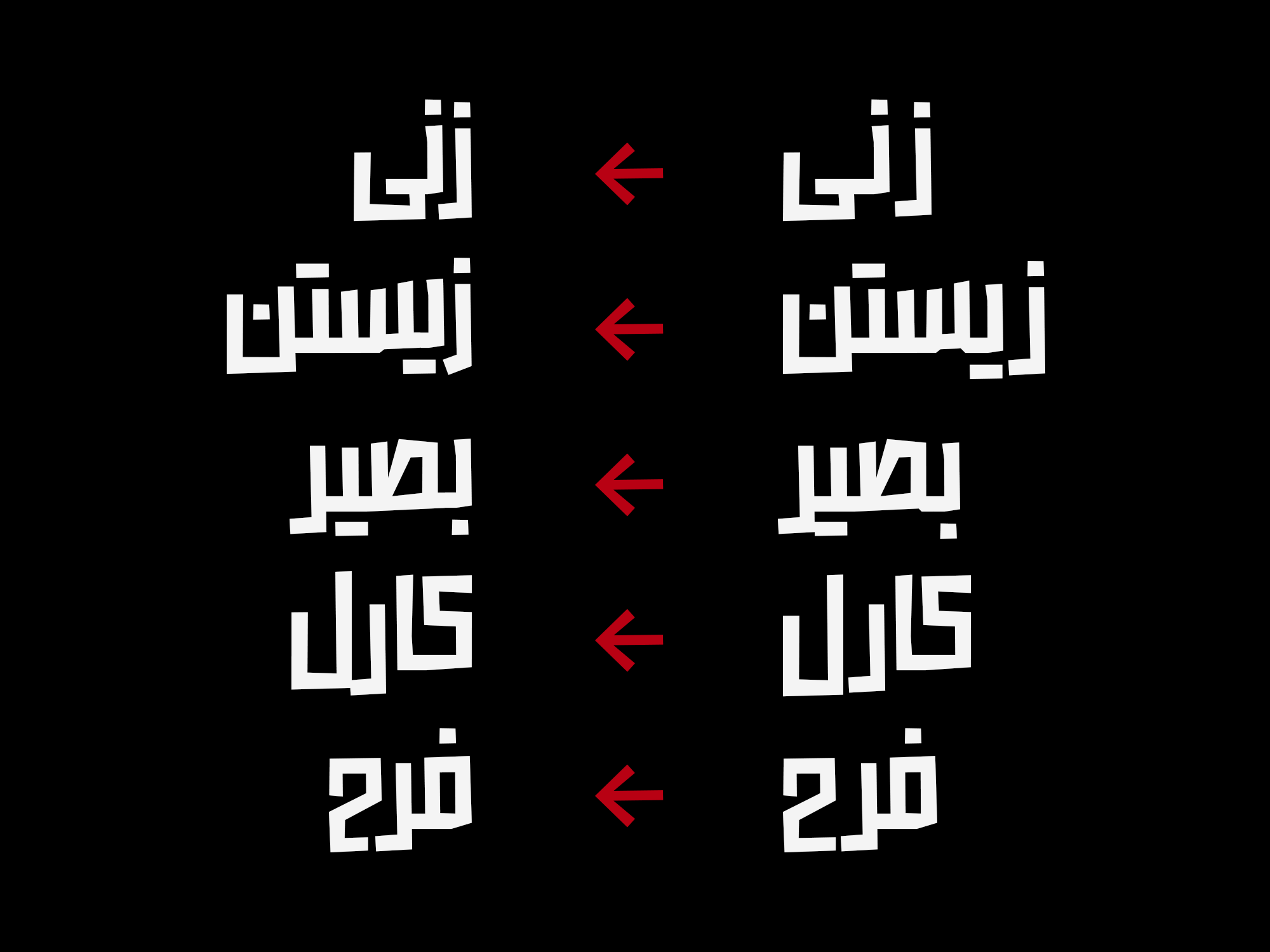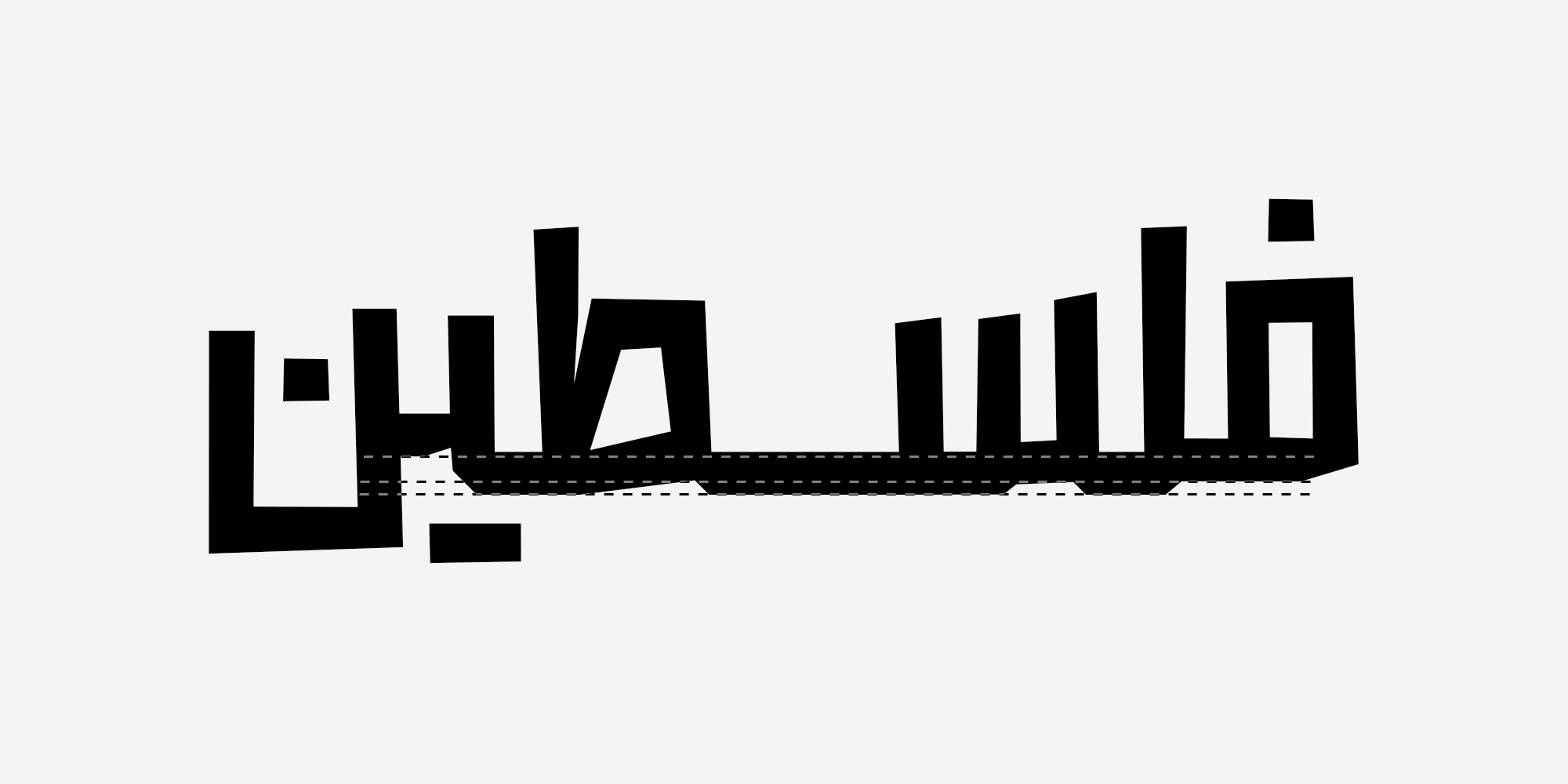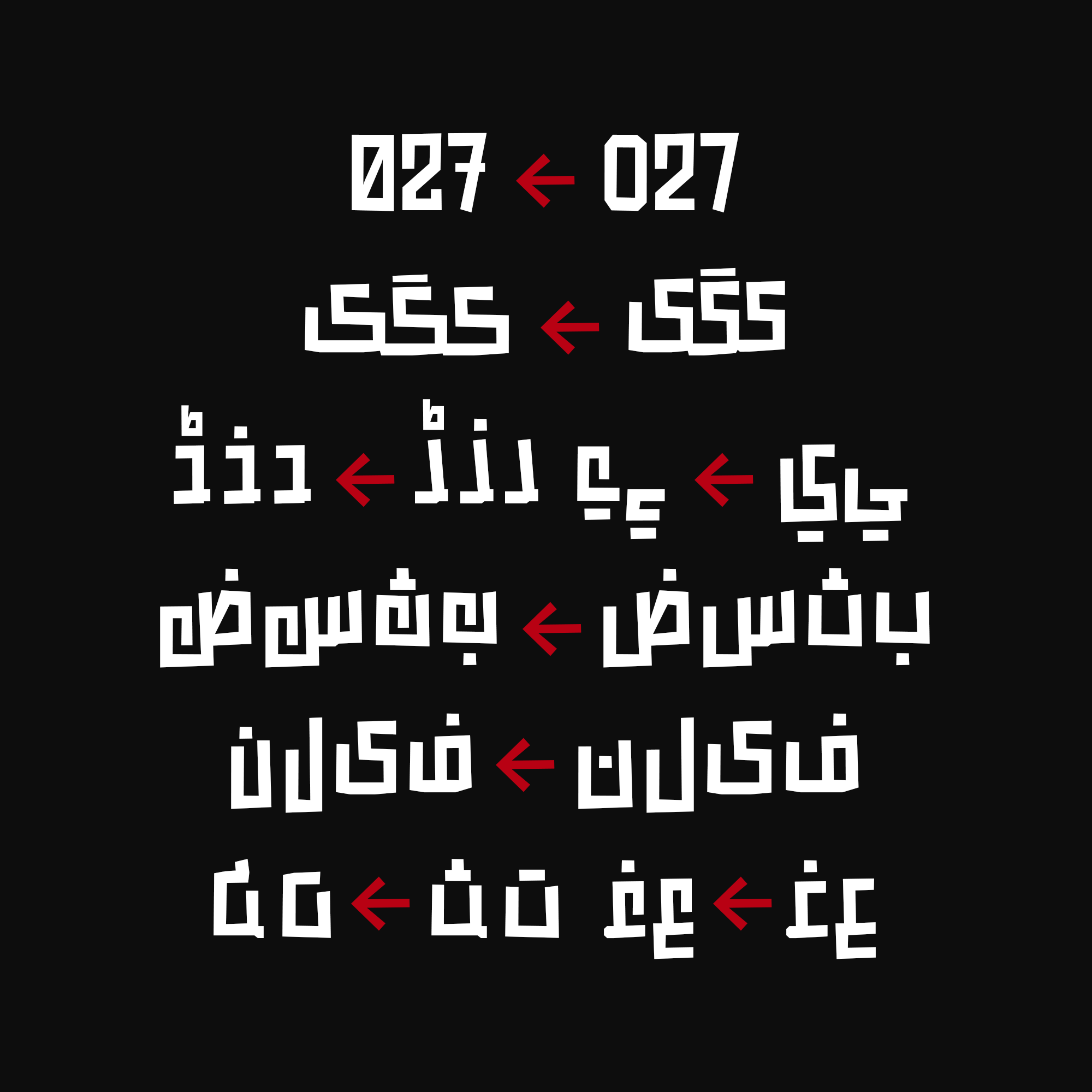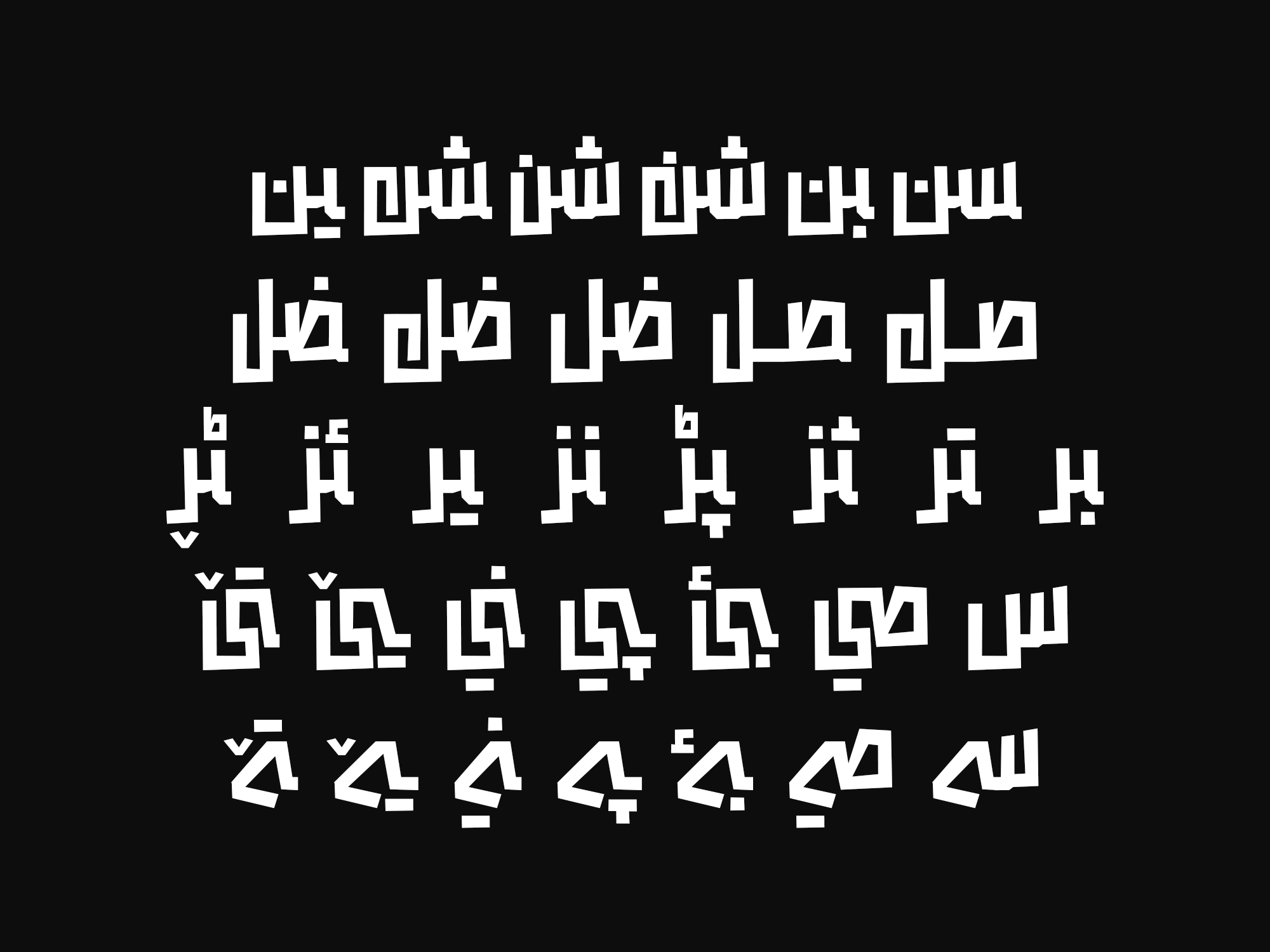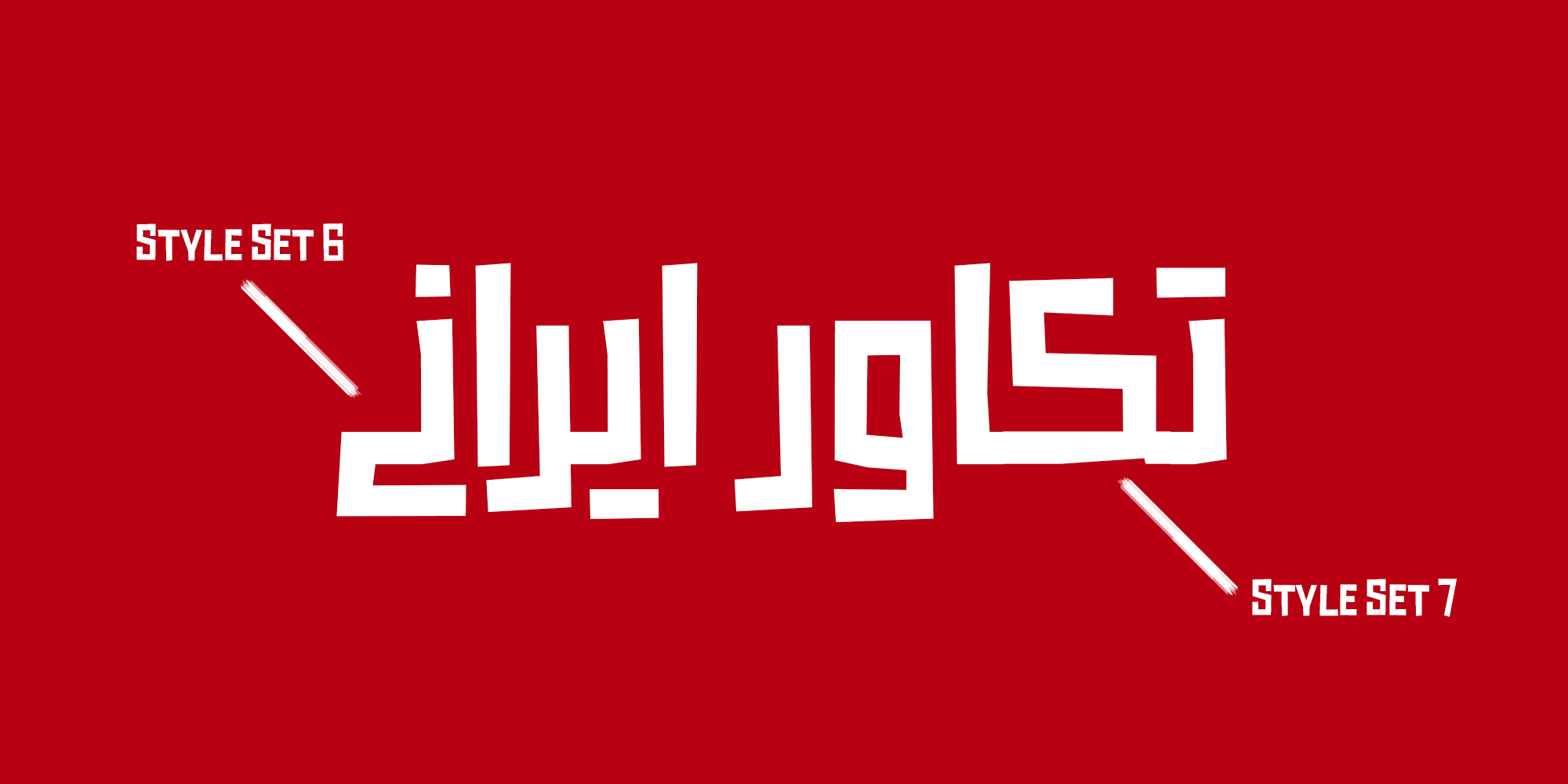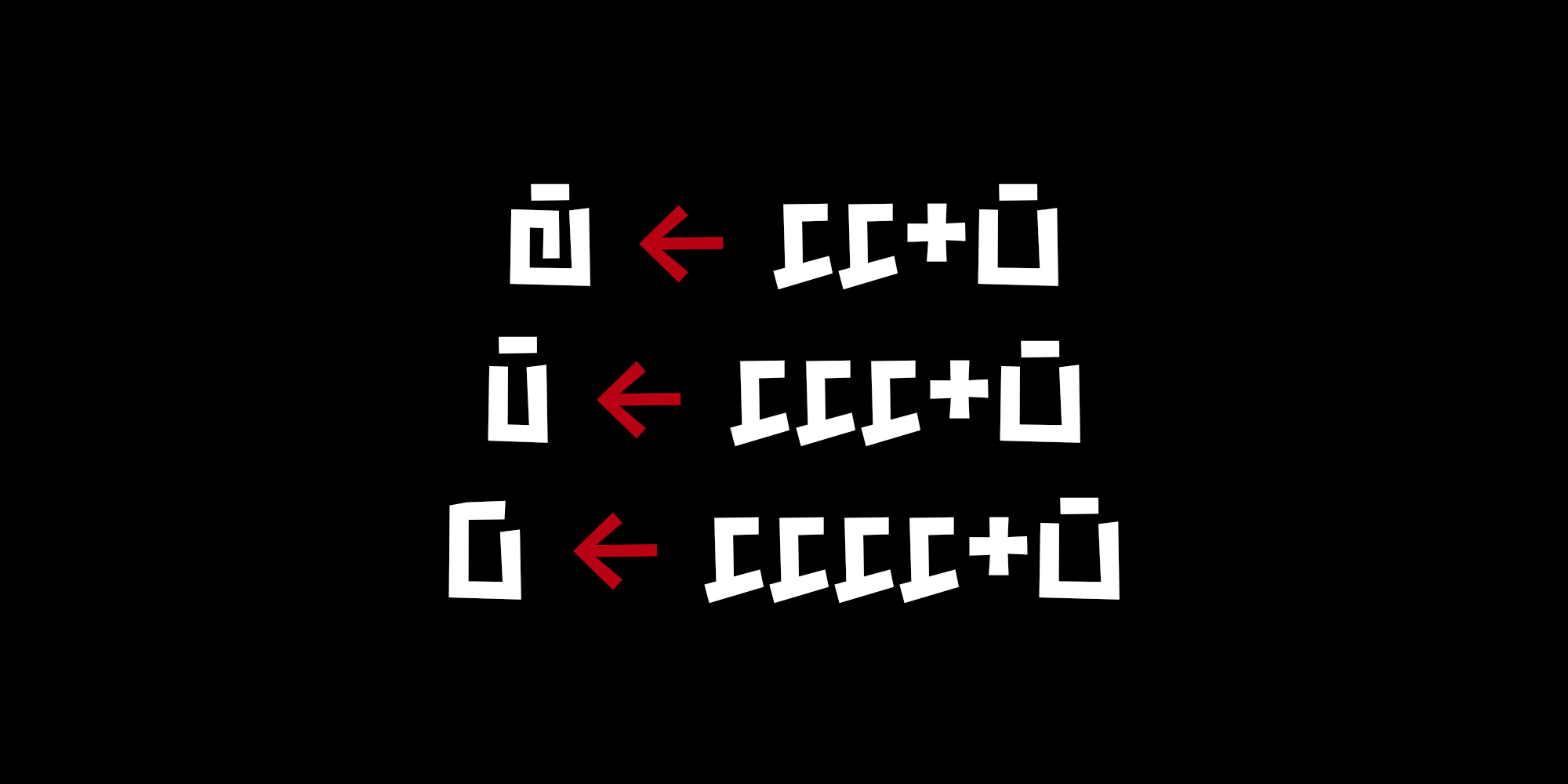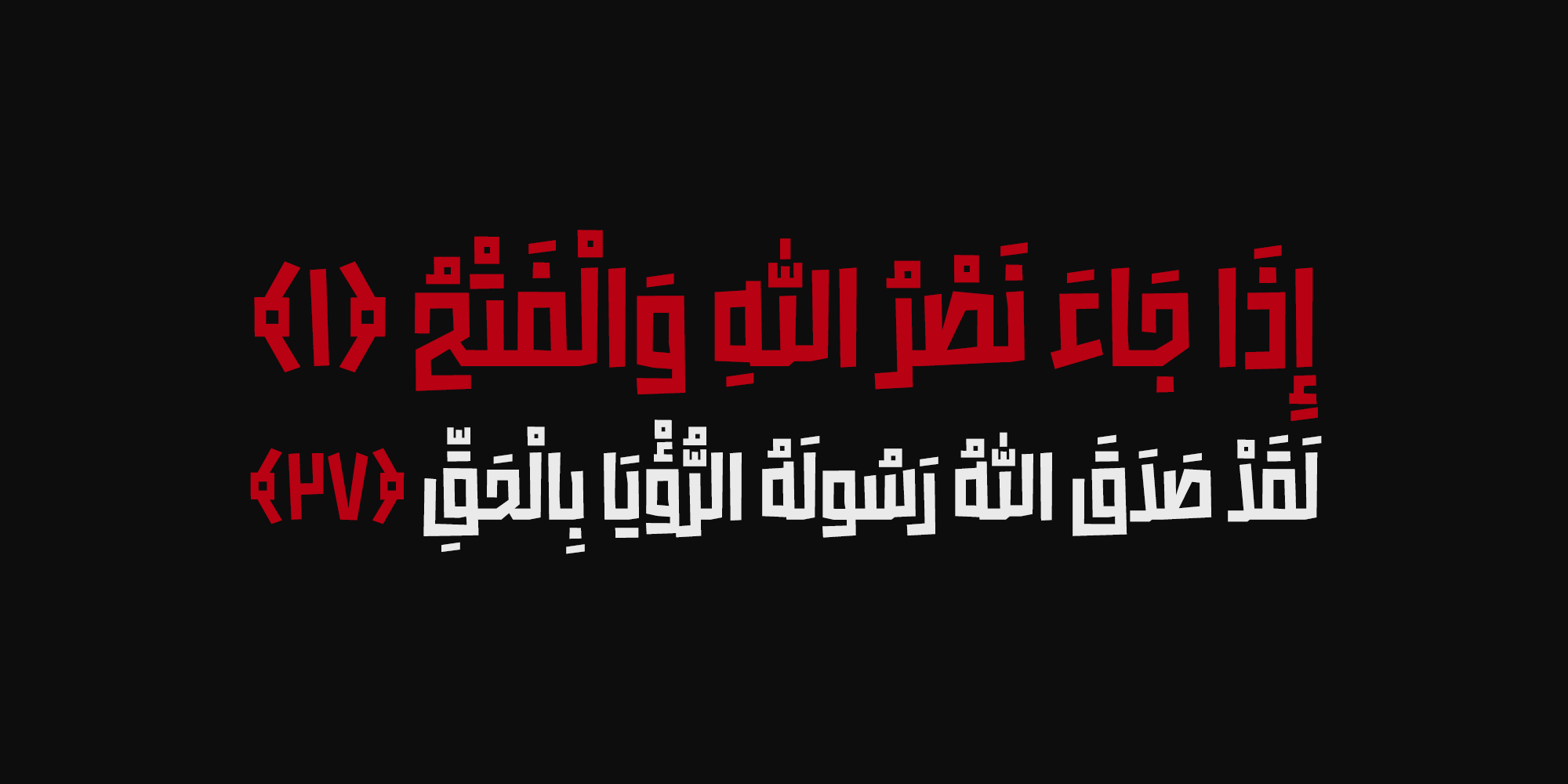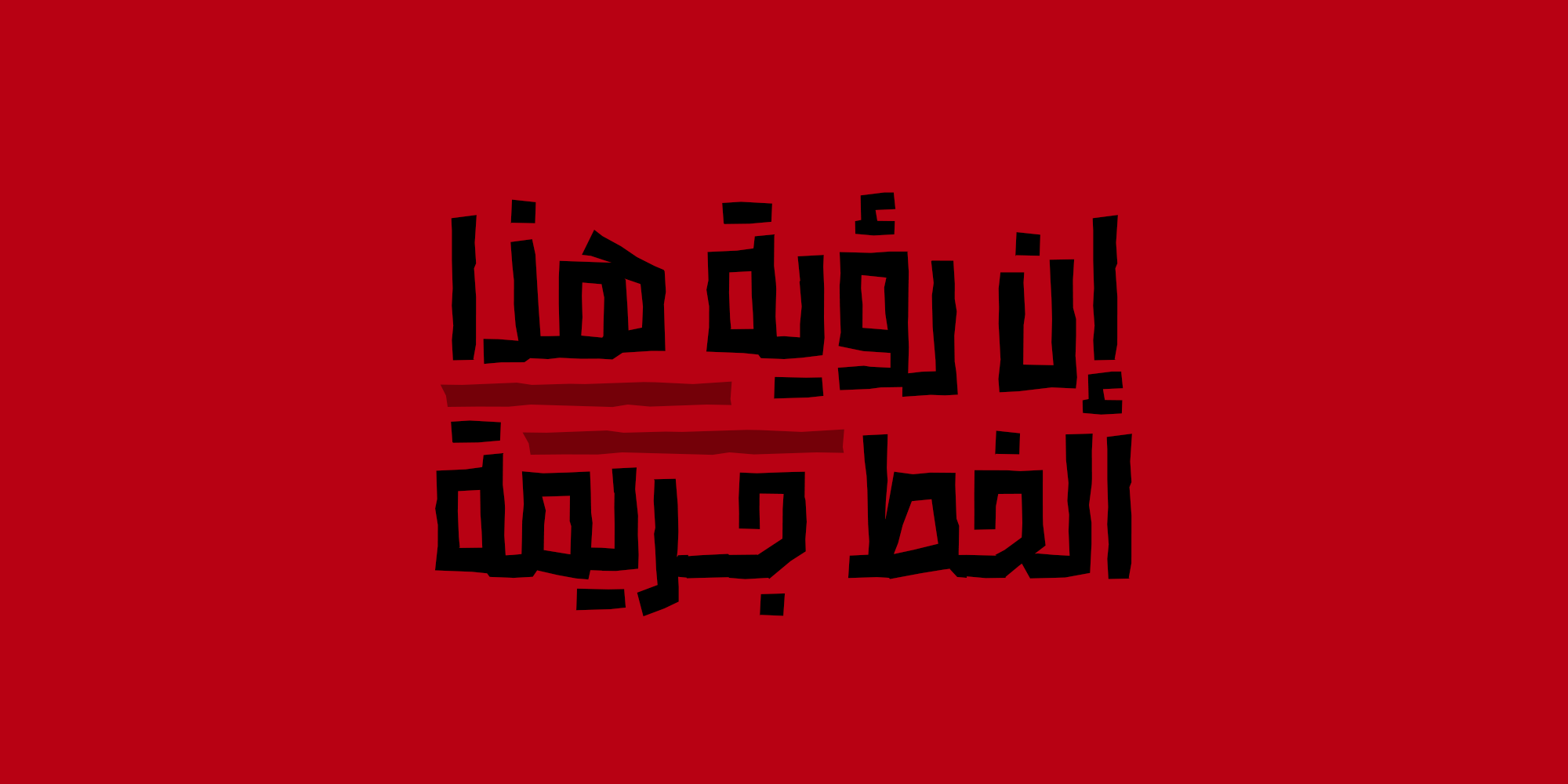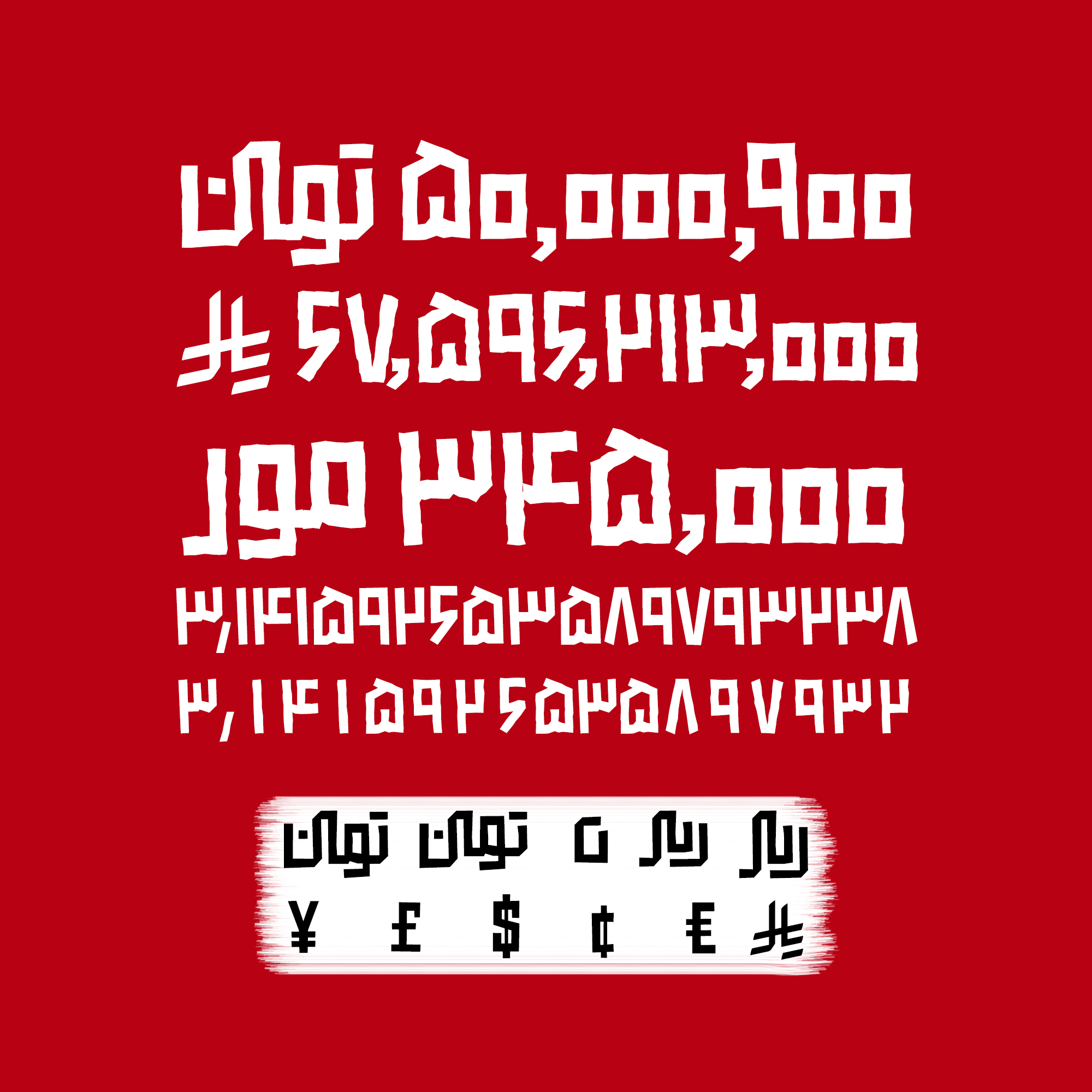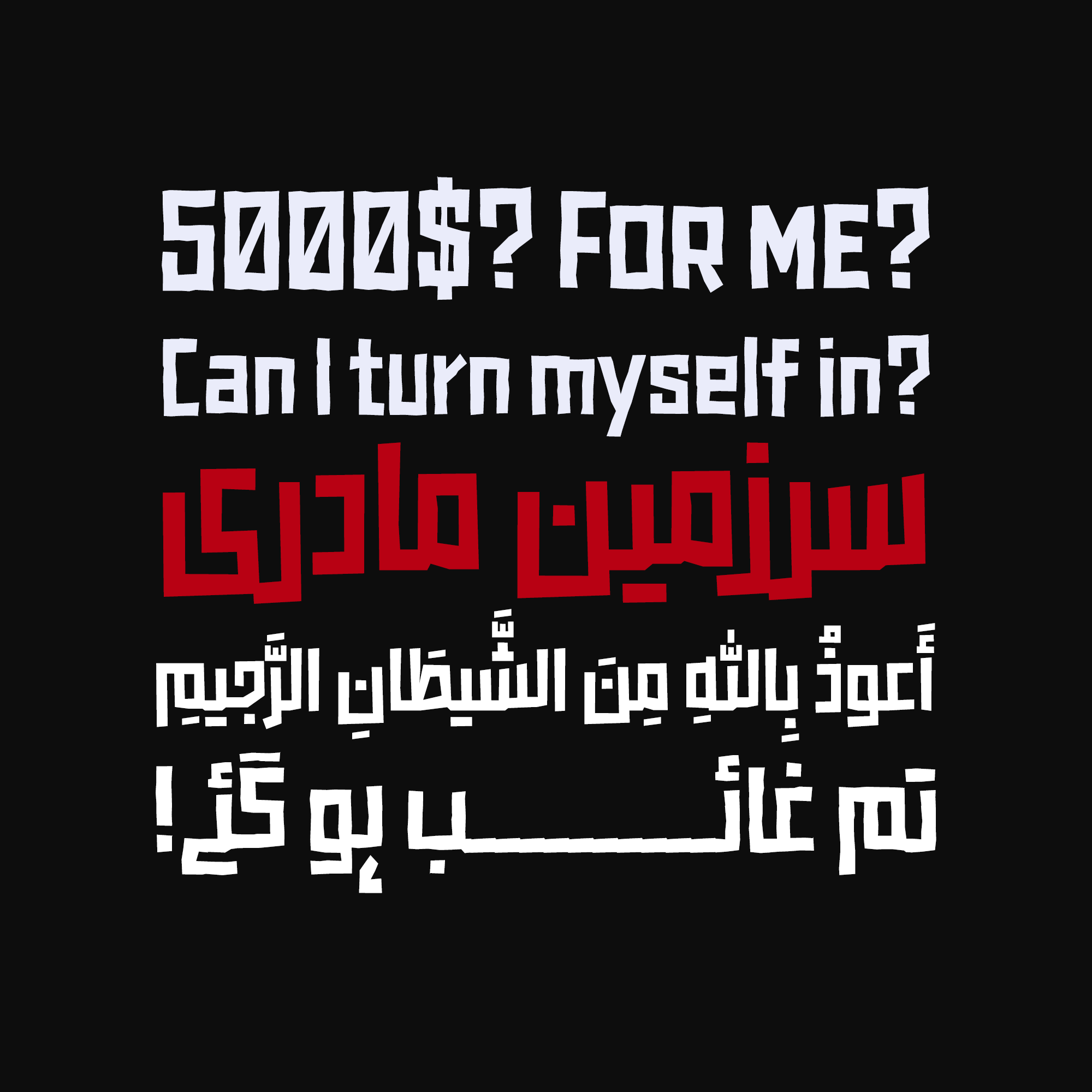
Havosh
Havosh comes in three styles.
RequiredLigatures/Alternates
Havosh focuses heavily on eliminating negative space. For many typographic combinations, contextual alternates have been implemented to fill these voids.
The number of contextual and stylistic alternates is nearly equal to the number of base glyphs, effectively doubling the font’s total glyph count.
Havosh automatically utilizes height-adjusting characters to create visual variety in text.
Stylistic Alternates